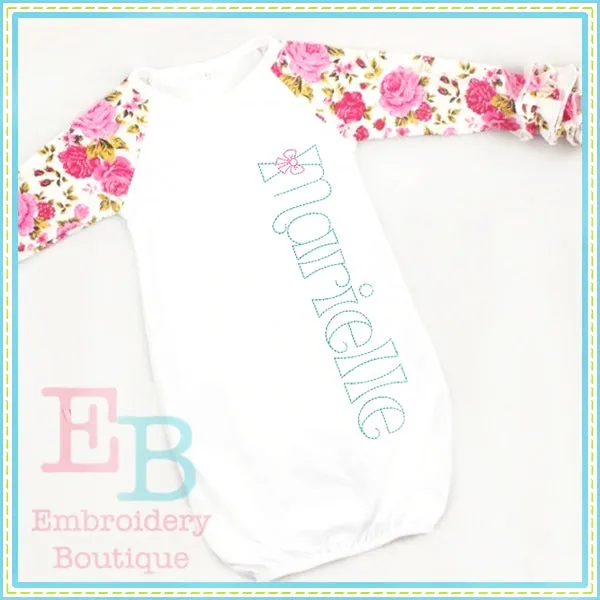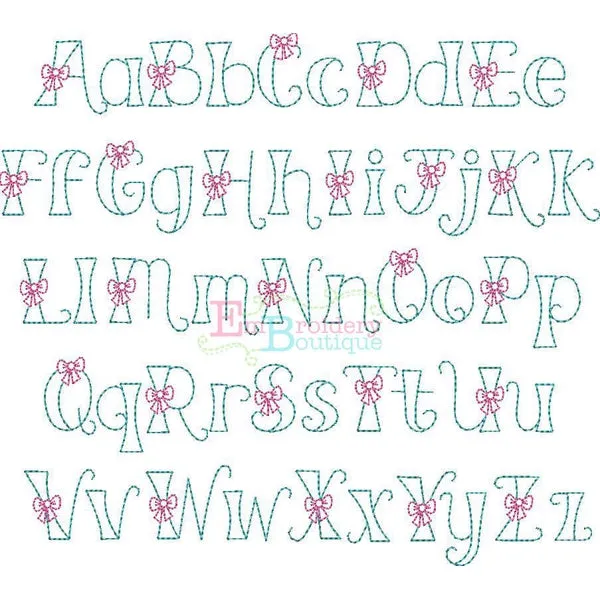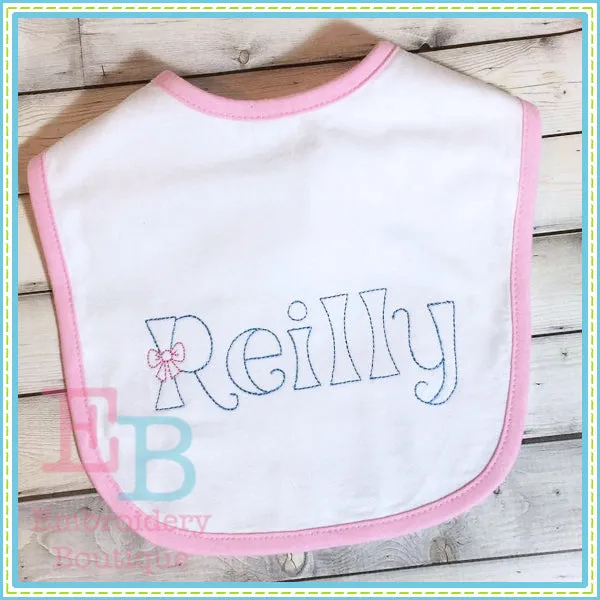
Bow Embroidery Font
So cute for girls of any age! Home decor too. Includes 8 sizes: 1, 1.5, 2, 2.5, 3. 3.5 and 4 inches Includes all 26 capital letters and all 26 lowercase letters. Capitals include bow, but lowercase do not.